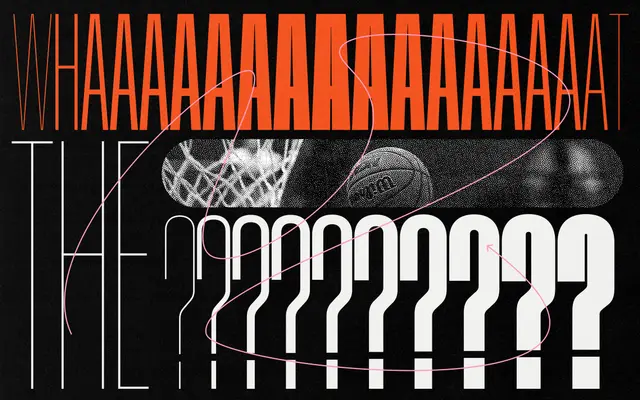
At Slam XCnd
Arillatype · Pedro Arilla · 2022
At Slam XCnd specimen from Arillatype
An extra condensed display sans by Pedro Arilla with 30 styles across 10 weights, each with slanted and backslant cuts, drawn from basketball culture and street court energy.
Part of the broader At Slam Collection, this extra condensed cut offers the tightest spacing of the family, running from Air to Super with forward slant and reverse backslant variants at every weight. OpenType features include old-school alternates, circled numerals, tabular figures and fractions, and a variable font covering weight and slant axes is included with the full family purchase. It suits sports branding, editorial headlines and any setting that calls for compressed, high-personality type.
An extra condensed display sans with strong vertical rhythm and expressive weight range, designed for high-impact typesetting inspired by basketball culture and street court aesthetics.